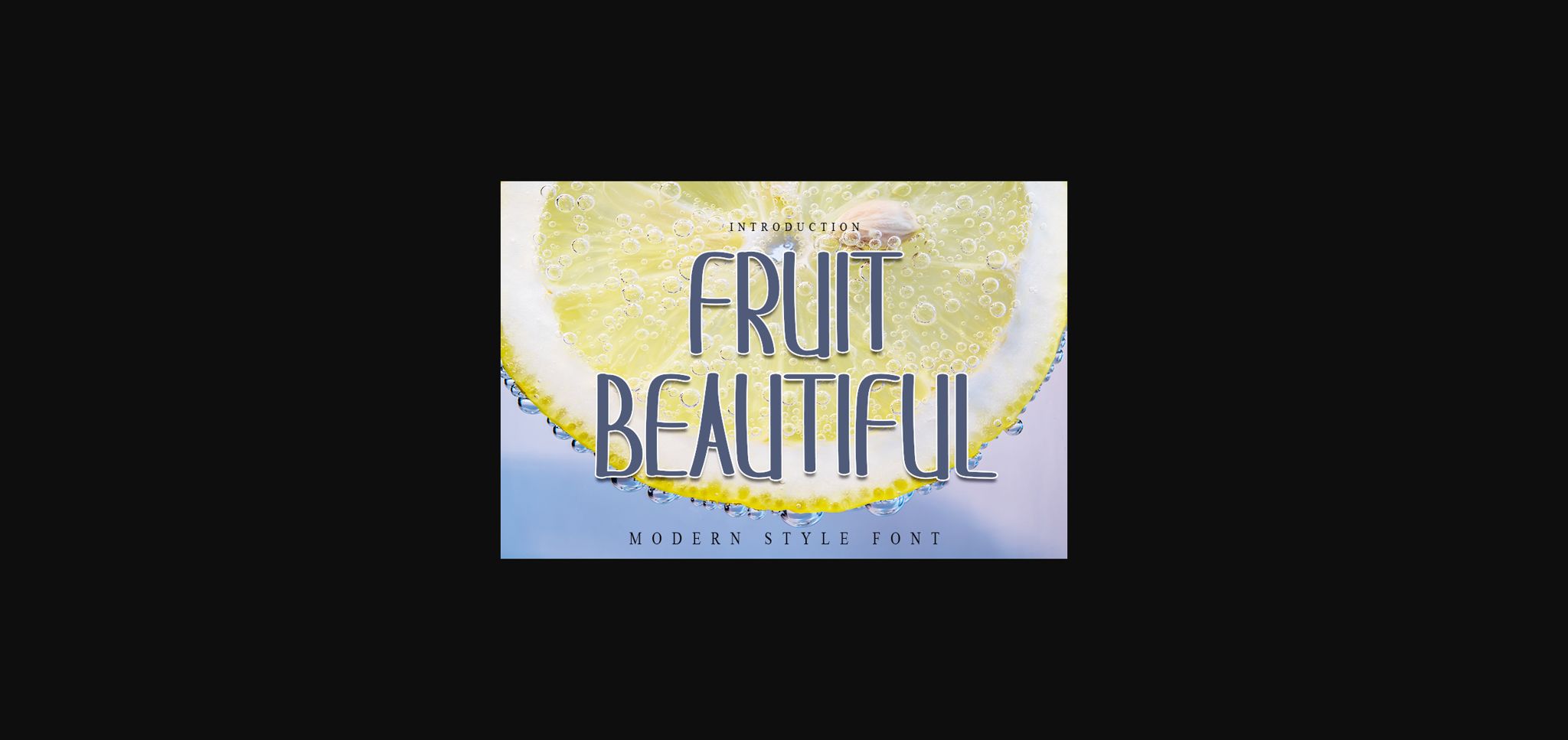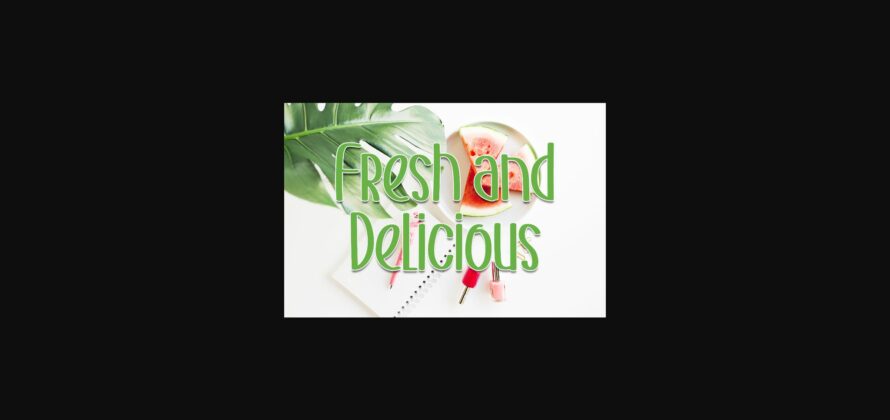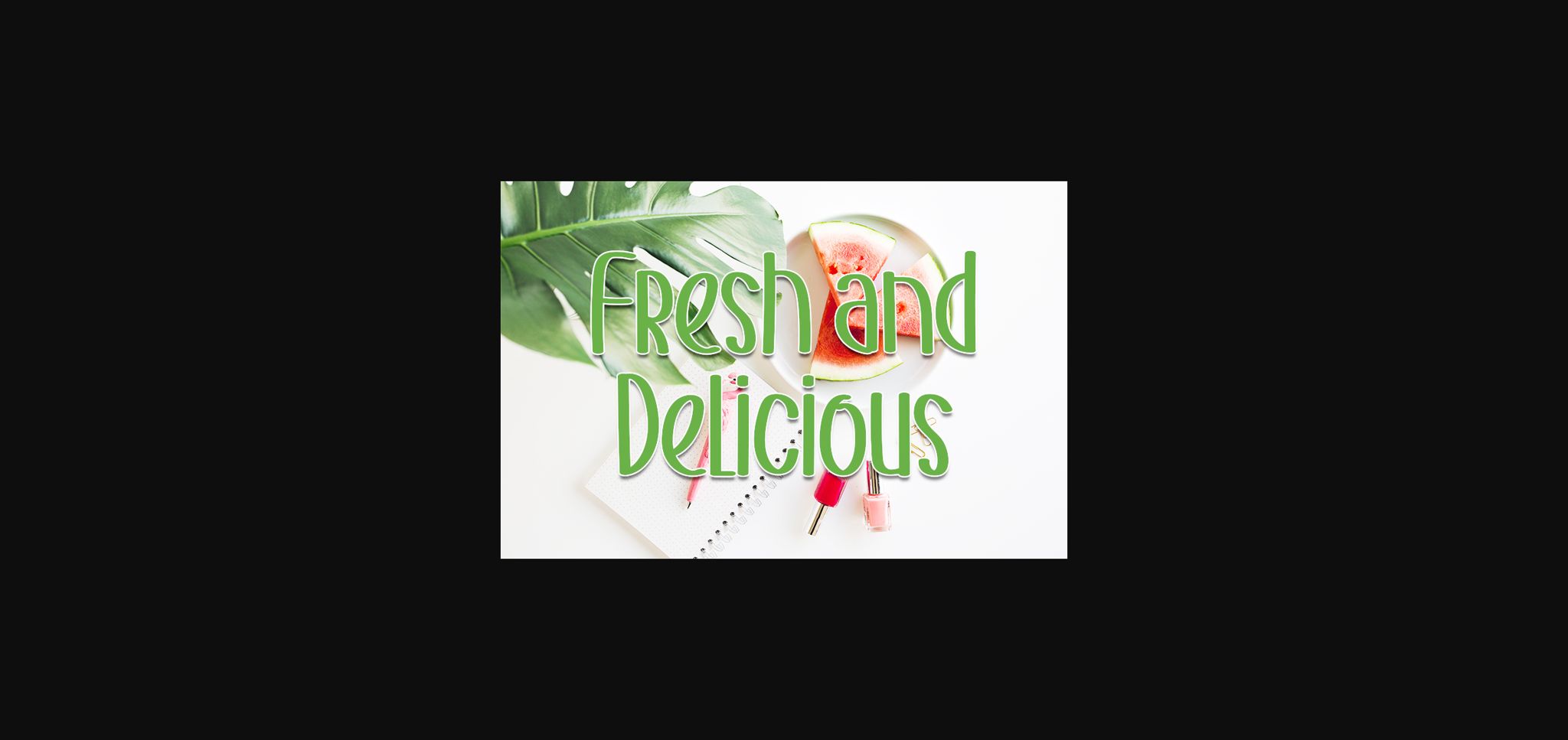
About Fruit Beautiful Font
Fruit Beautiful is a sweet and natural sans serif font. Tall and thin lettered, this font will complement each of your creative designs.